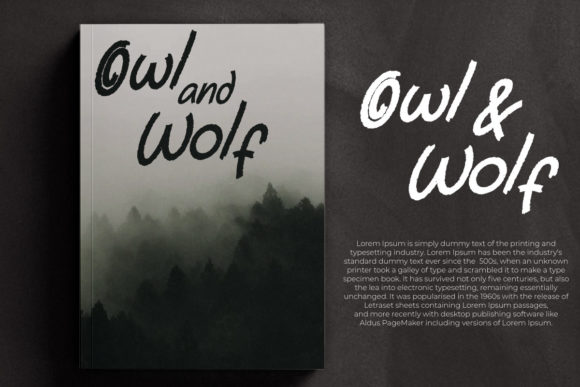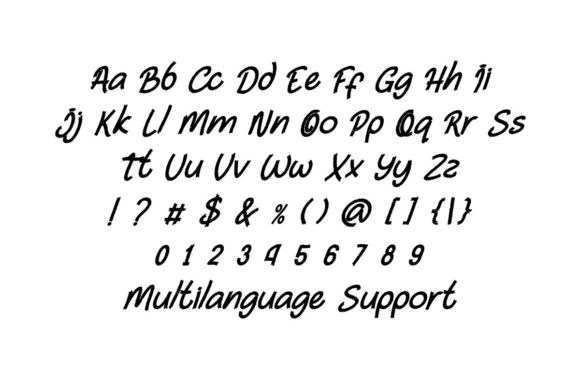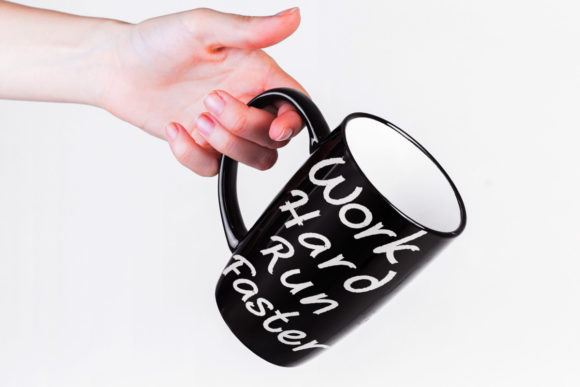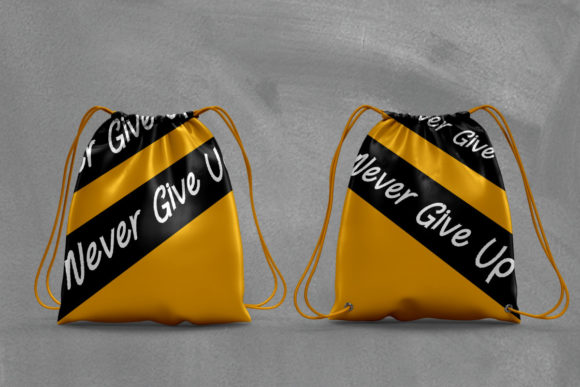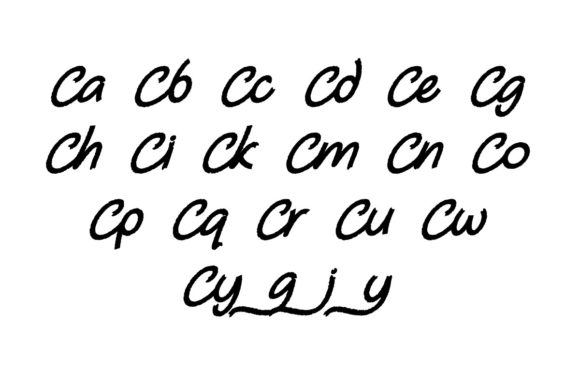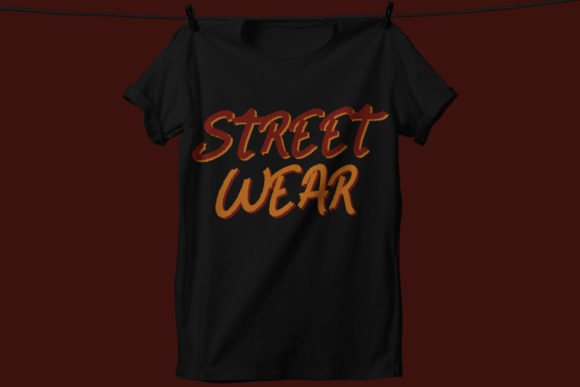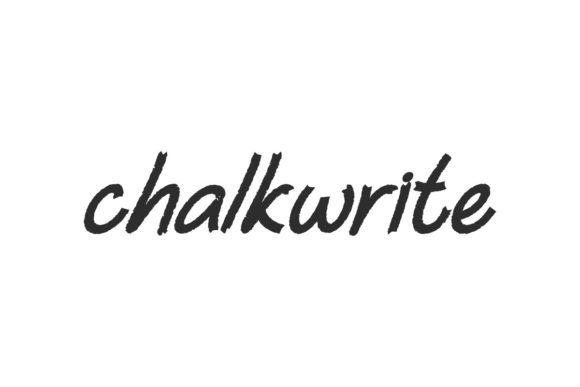
Introducing Chalkwrite Font: Elevate Your Designs with a Touch of Vintage Elegance
In the world of typography, fonts play a crucial role in conveying the tone and personality of a brand or design. For designers and crafters looking to add a touch of vintage elegance to their projects, Chalkwrite Font is an excellent choice. This beautiful, well-balanced, and vintage-styled script font is defined by smooth curves, making it perfect for fashion branding or editorial designs.
What Makes Chalkwrite Font Stand Out?
Chalkwrite Font boasts a unique charm that sets it apart from other fonts. Its smooth, flowing curves give it a sophisticated and elegant feel, reminiscent of traditional chalkboard writing. The font’s balanced design ensures that it remains legible and visually appealing, even at smaller sizes. This makes it an excellent choice for a wide range of applications, from fashion branding and editorial designs to packaging and advertising.
Perfect for Fashion Branding and Editorial Designs
Fashion branding and editorial designs require a font that exudes style and sophistication. Chalkwrite Font fits the bill perfectly. Its vintage charm and elegant curves make it an ideal choice for designers looking to create luxurious and high-end designs. Whether you’re working on a fashion magazine, a clothing brand, or a beauty product, Chalkwrite Font is sure to elevate your designs and leave a lasting impression.
Key Features of Chalkwrite Font
- Beautiful and Elegant Design: Chalkwrite Font features smooth, flowing curves that give it a sophisticated and elegant feel.
- Well-Balanced and Legible: The font’s balanced design ensures that it remains legible and visually appealing, even at smaller sizes.
- Vintage Charm: Chalkwrite Font’s vintage styling gives it a unique charm that sets it apart from other fonts.
- Perfect for Fashion Branding and Editorial Designs: The font’s elegant curves and sophisticated feel make it an ideal choice for fashion branding and editorial designs.
Tips for Using Chalkwrite Font in Your Designs
To get the most out of Chalkwrite Font, here are a few tips to keep in mind:
- Use it as a Headline Font: Chalkwrite Font is perfect for headlines and titles, where its elegant curves and vintage charm can really shine.
- Pair it with a Sans-Serif Font: For body text, consider pairing Chalkwrite Font with a clean sans-serif font to create a nice contrast.
- Experiment with Colors and Textures: Chalkwrite Font looks great in a variety of colors and textures, so don’t be afraid to experiment and find the perfect combination for your design.
In conclusion, Chalkwrite Font is a beautiful and elegant script font that is perfect for designers and crafters looking to add a touch of vintage elegance to their projects. Its smooth curves, balanced design, and vintage charm make it an excellent choice for fashion branding and editorial designs. With its wide range of applications and versatility, Chalkwrite Font is sure to become a staple in any designer’s font collection.